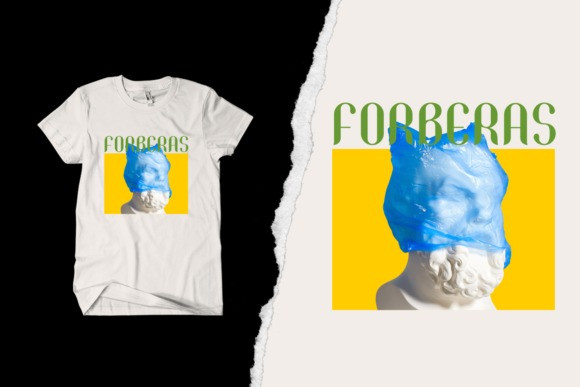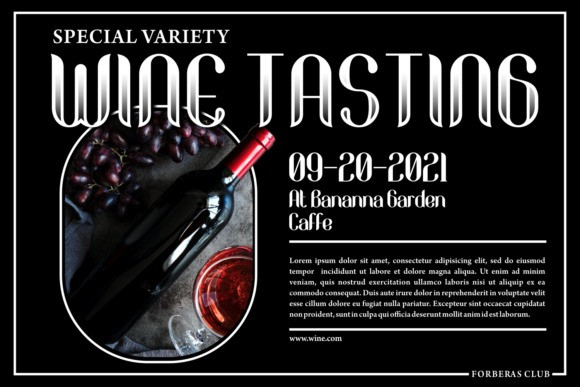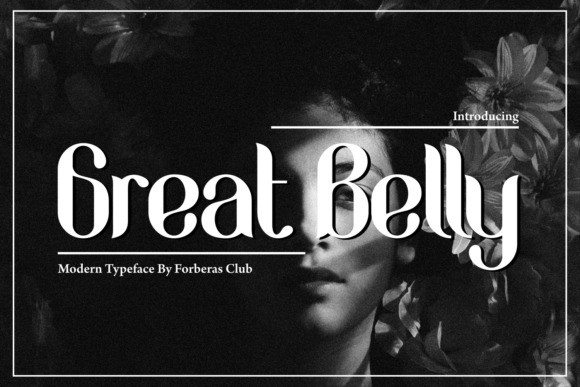
Great Belly Font
Great Belly Font is a bold and playful display font. Add this vintage styled font to your creation and instantly enhance their levels. The only limit is your imagination!